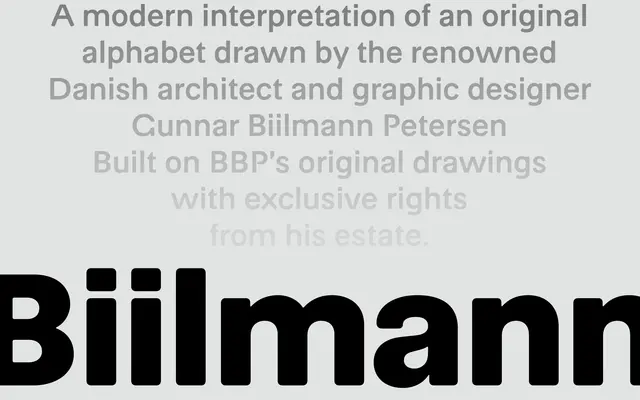
Biilmann
A2-Type · Gunnar Biilmann Petersen (original), A2-Type (revival) · 2018
A digital revival of a 1932 alphabet by Danish architect Gunnar Biilmann Petersen, redrawn by A2-Type from archive originals held at the Danish Design Museum.
Working directly from Gunnar Biilmann Petersen's original drawings held in the Danish Design Museum's archive, A2-Type secured permission from the Biilmann family in 2018 to restore and reimagine the alphabet as a contemporary digital typeface. The family spans seven weights from Thin to Black, with no italics, keeping the upright, constructed character of the source material. It sits firmly within the modernist Scandinavian sans-serif tradition and suits identity and editorial work that calls for historical grounding without period pastiche.
A digitised revival of a 1932 geometric alphabet by Danish architect and graphic designer Gunnar Biilmann Petersen, the typeface sits within the modernist Scandinavian sans-serif tradition with clean, constructed letterforms.